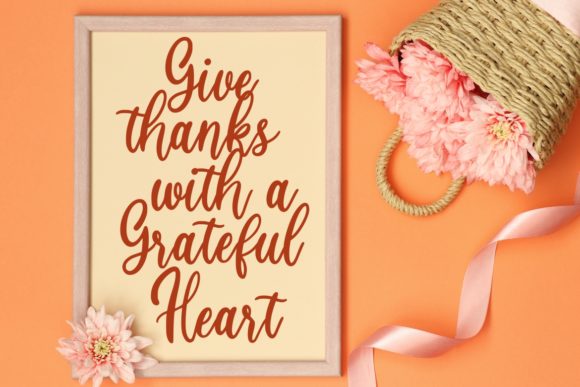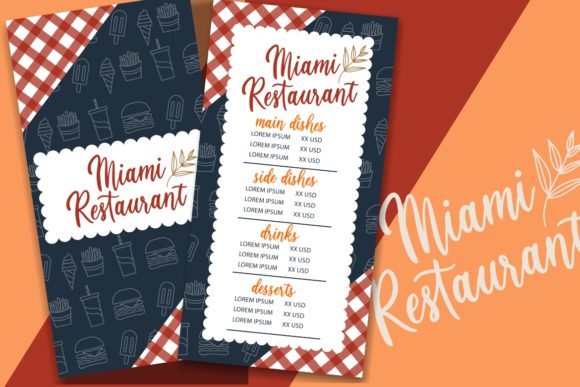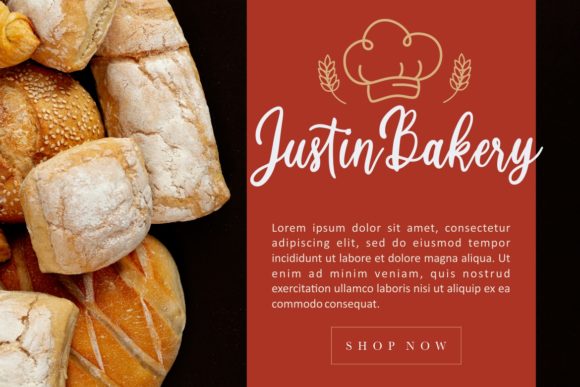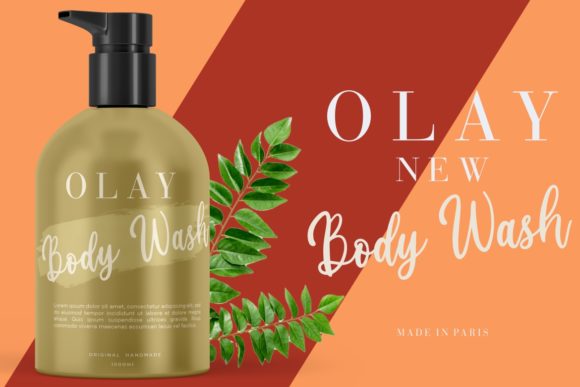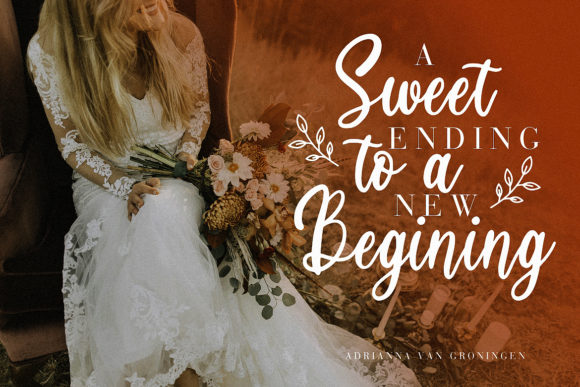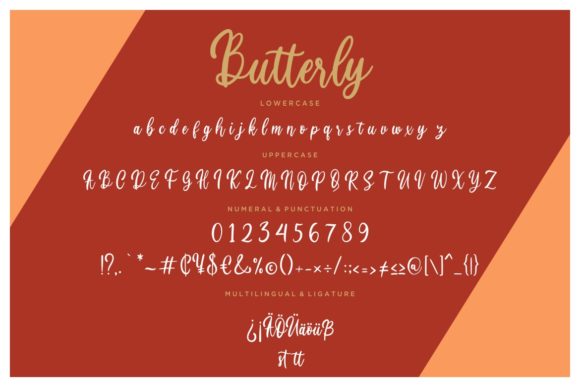
Introducing Butterly Font: The Epitome of Elegance and Sweetness
Butterly is a classy script font that’s both elegant and sweet. Get inspired by its unique style! In the world of typography, fonts play a crucial role in conveying the tone and personality of a brand or design. Among the numerous fonts available, Butterly stands out for its distinctive and captivating style. This article will delve into the world of Butterly font, exploring its features, uses, and the inspiration behind its creation.
The Birth of Butterly Font
Butterly font was designed to fill the gap between elegance and playfulness. Its creator aimed to craft a font that exudes sophistication while maintaining a touch of whimsy. The result is a classy script font that’s perfect for designs requiring a balance of refinement and charm.
Key Features of Butterly Font
- Elegant and Sweet: Butterly’s unique style combines elegance and sweetness, making it suitable for a wide range of design projects.
- Classy Script: The font features beautiful, flowing script letters that add a touch of sophistication to any design.
- Unique Style: Butterly’s distinctive style sets it apart from other fonts, making it perfect for designers seeking to create memorable and impactful designs.
- Versatile: The font can be used for various design projects, including branding, packaging, and digital media.
Inspiration Behind Butterly Font
The inspiration behind Butterly font stems from the desire to create a font that embodies both elegance and playfulness. The creator drew inspiration from classic script fonts, infusing them with a modern twist to produce a unique and captivating style. The result is a font that’s perfect for designers seeking to add a touch of sophistication and whimsy to their designs.
Uses of Butterly Font
Butterly font is suitable for a wide range of design projects, including:
- Branding: Use Butterly font to create elegant and memorable brand identities.
- Packaging: Add a touch of sophistication and charm to your packaging designs with Butterly font.
- Digital Media: Use Butterly font to create engaging and visually appealing digital content, such as social media graphics and blog posts.
- Stationery: Create beautiful and elegant stationery designs, including wedding invitations and greeting cards.
Tips for Using Butterly Font
To get the most out of Butterly font, consider the following tips:
- Pair with Neutral Fonts: Pair Butterly font with neutral fonts to create a balanced and harmonious design.
- Use for Headings: Use Butterly font for headings and titles to add a touch of elegance and sophistication.
- Experiment with Colors: Experiment with different colors to find the perfect combination that complements Butterly font.
Butterly font is a classy script font that’s both elegant and sweet. Its unique style makes it perfect for designers seeking to add a touch of sophistication and whimsy to their designs. With its versatility and range of uses, Butterly font is an excellent addition to any designer’s toolkit. Get inspired by its unique style and take your designs to the next level!